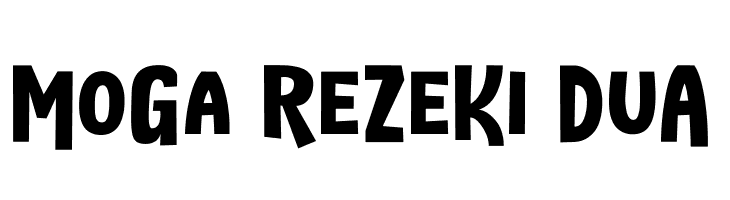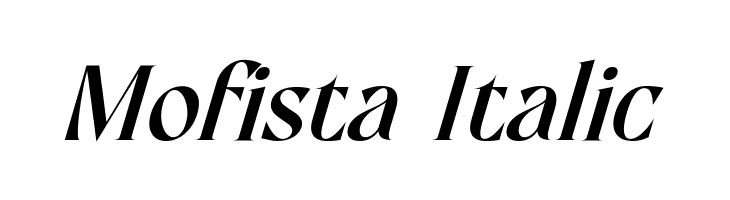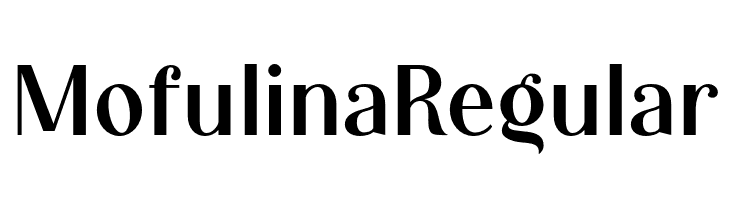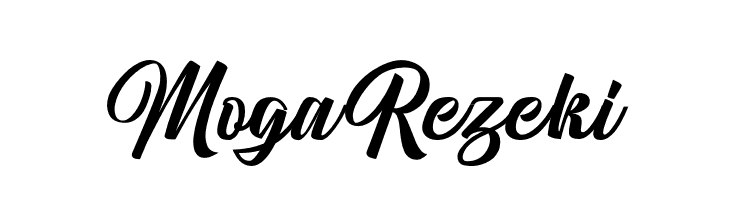
A bold, elegant script font with flowing cursive letterforms.
A bold, playful font with dynamic characters and a strong presence.
A playful, curly font with rounded edges and whimsical character.
A bold, hand-painted style font with dynamic, irregular strokes.
A sophisticated cursive font with elegant, flowing characters.
A bold, decorative font with geometric shapes and intricate details.
A modern, bold font with clean lines and slight contrast, perfect for impactful designs.
A modern, elegant font with clean lines and a bold weight.
A modern, geometric font with elegant, elongated characters and subtle stroke contrast.